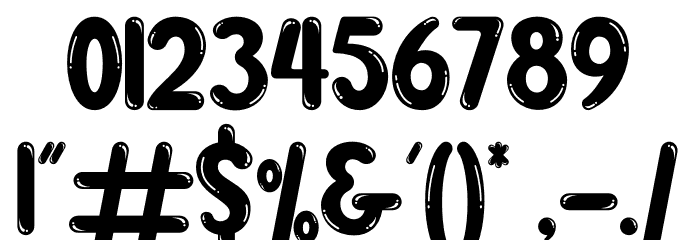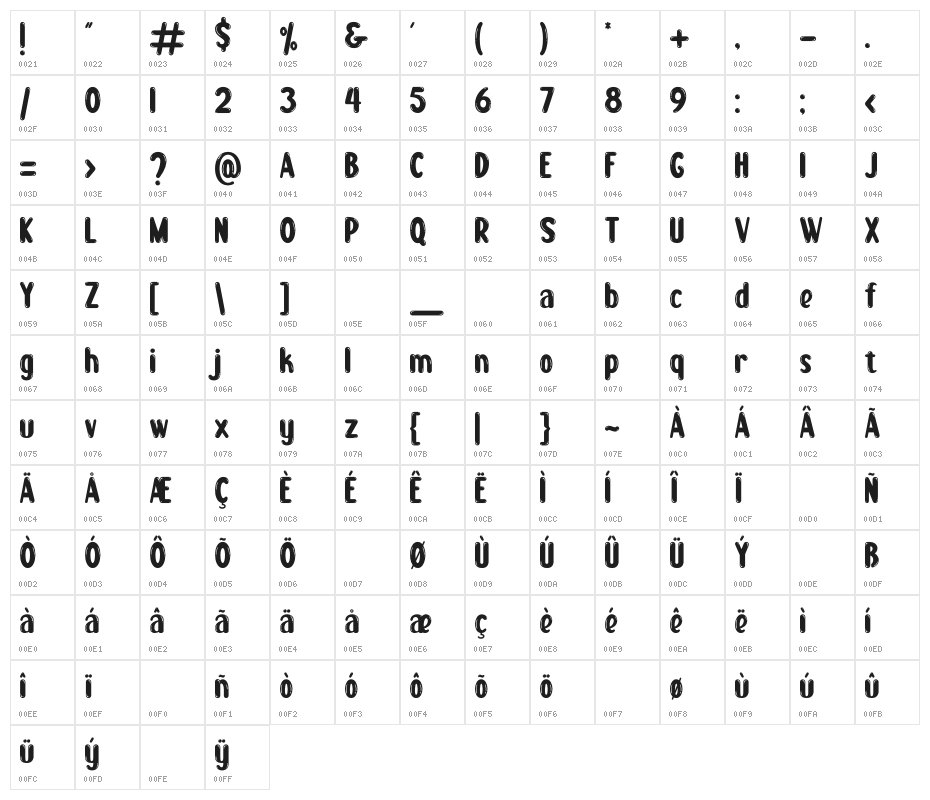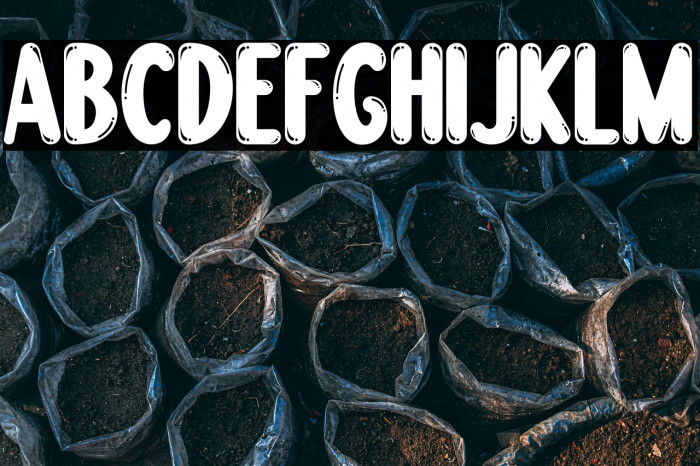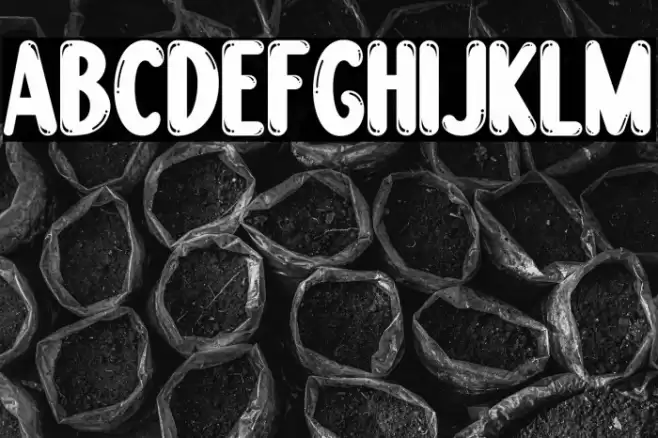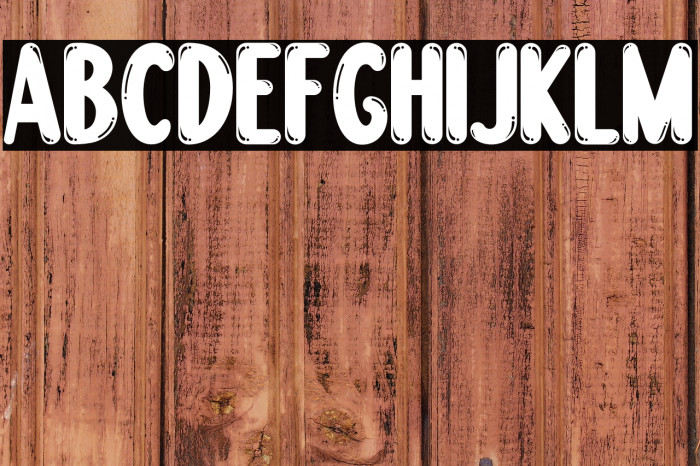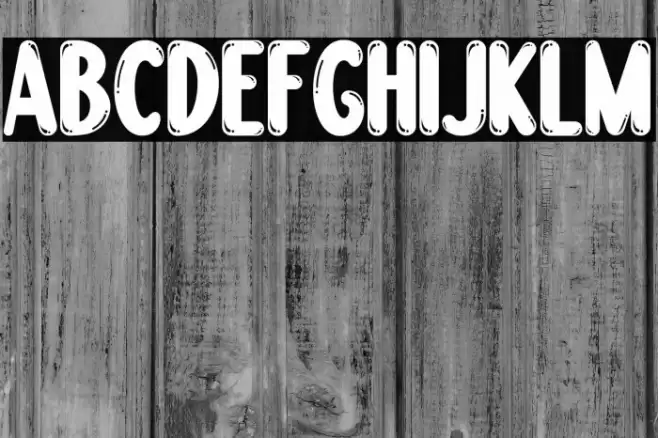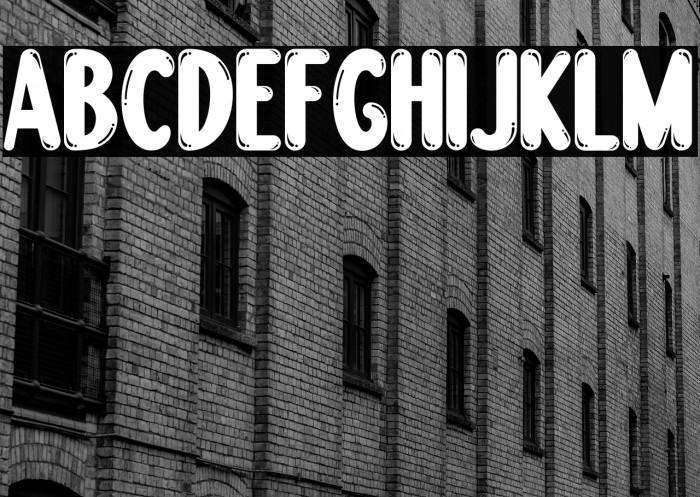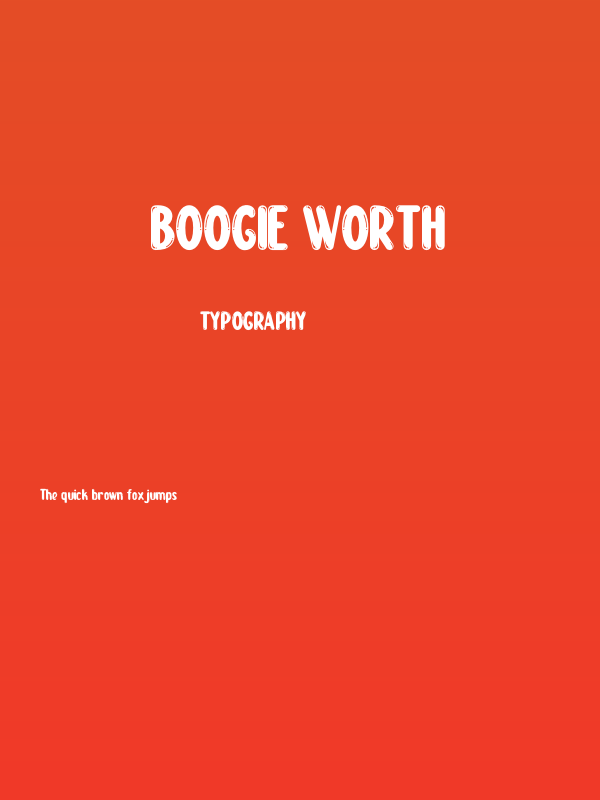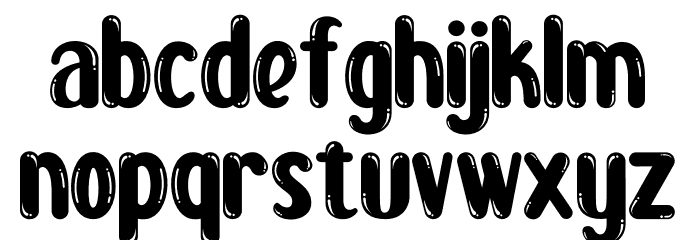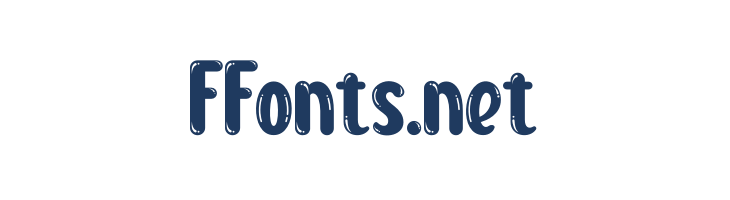
Boogie worth Font
Boogie worth Description
This font exudes a playful and energetic vibe, characterized by its bold and rounded letterforms. Each character is filled with a solid black color, giving it a strong presence. The letters have a slight shadow effect, adding depth and a three-dimensional feel. The overall design is reminiscent of retro or vintage styles, making it ideal for projects that require a fun and lively touch. The font maintains consistent thickness throughout, ensuring readability while still being visually striking.
| Overall Style | Retro, Fun, Playful |
| Proposed Projects | Perfect for posters, party invitations, children's books, and branding that requires a fun and energetic look. |